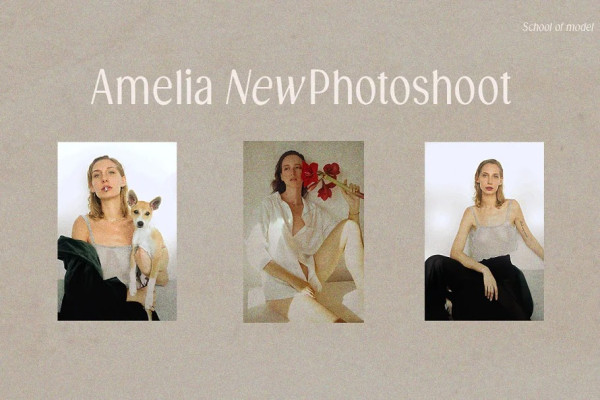
Anegreya Font
Anegreya Font is a Serif font that strikes the perfect balance between classic and modern, combining serif and sans serif styles in a unique way. Its timeless appeal makes Anegreya a great choice for stylish and impactful designs. The font family includes 8 different weights, uppercase, lowercase, punctuation, and multilingual support.